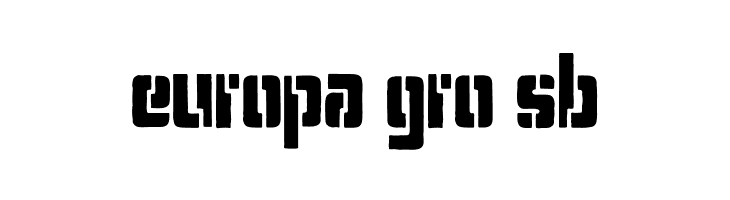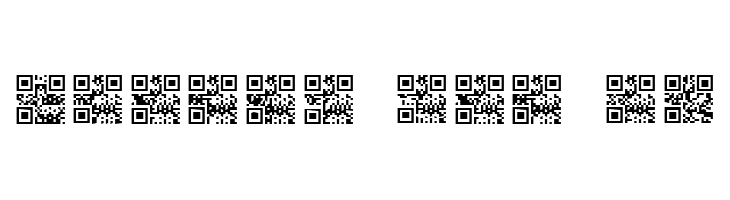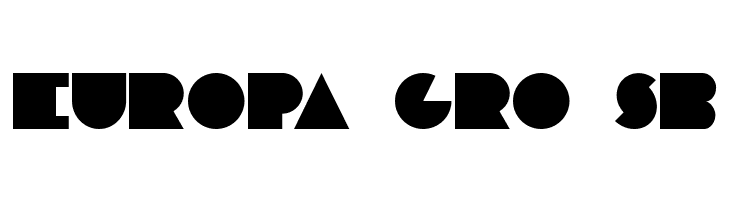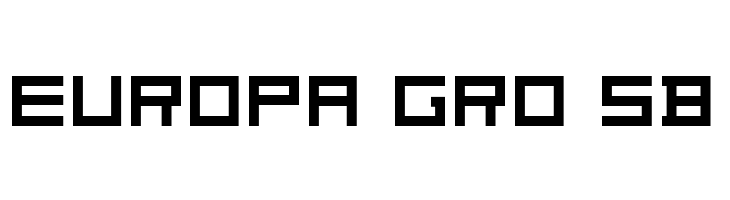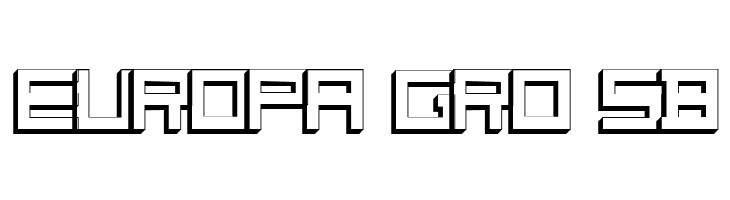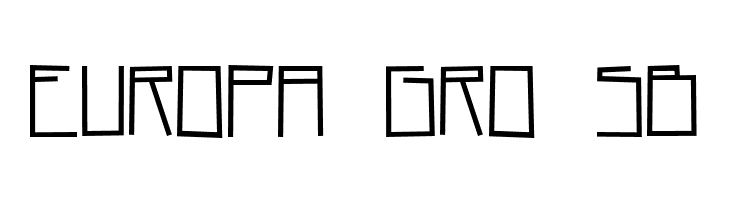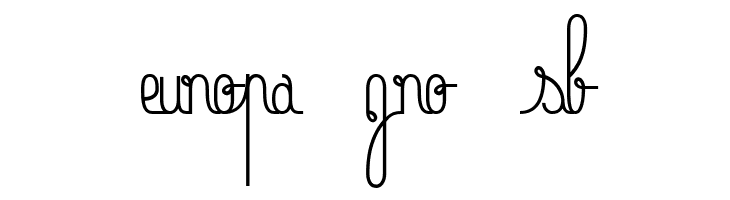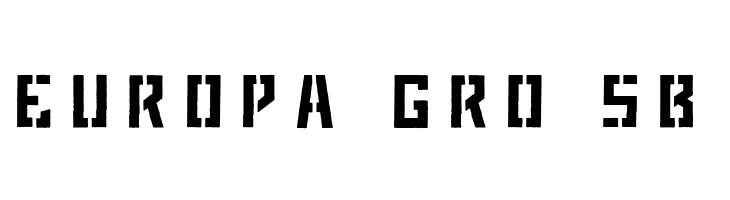
• Karen Stencil
A bold, stencil-style font with a rugged, industrial look.
• Scan me QR
A QR code-inspired decorative font with each character as a distinct QR symbol.
• Modular Tkno
A futuristic, modular font with geometric shapes and a techno vibe.
• Modern plate
A bold, geometric font with sharp angles and a modern aesthetic.
• Konstructiv
• Konstructiv 3D
A bold, geometric 3D font with a futuristic and industrial style.
• Home Square
A geometric, angular font with consistent stroke width and a modern look.
• Bellefine
A modern, continuous line font with elegant, interconnected characters.
• Game Plan game plan
A bold, geometric stencil font with an industrial feel.
• aerial demented
A bold, fragmented font with a chaotic and edgy style.